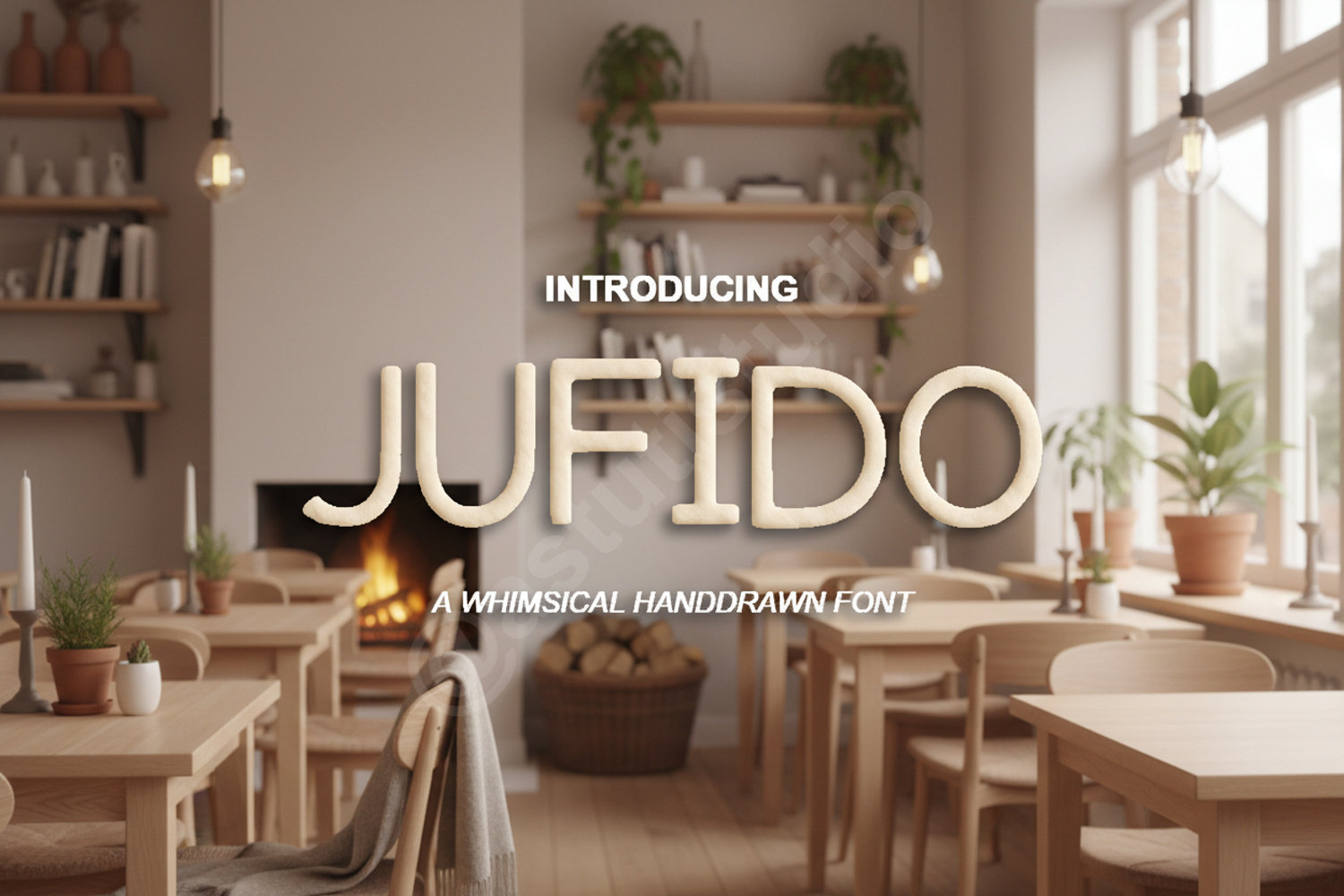
Jufido - Modern Geometric Sans Serif
Jufido
Jufido is a premium geometric sans serif font meticulously crafted for modern aesthetics and high-impact clarity. Featuring clean lines and perfectly balanced proportions, this font serves as a versatile powerhouse for any creative professional seeking a sophisticated and contemporary look.
- Branding and Identity: Create memorable logos and cohesive corporate identities.
- Web Design: Ensure maximum readability across all digital screens and platforms.
- Editorial Layouts: Perfect for bold headlines, body text, and magazine spreads.
- Marketing Materials: Enhance social media graphics and promotional advertisements.
- Product Packaging: Add a sleek, minimalist touch to physical product designs.